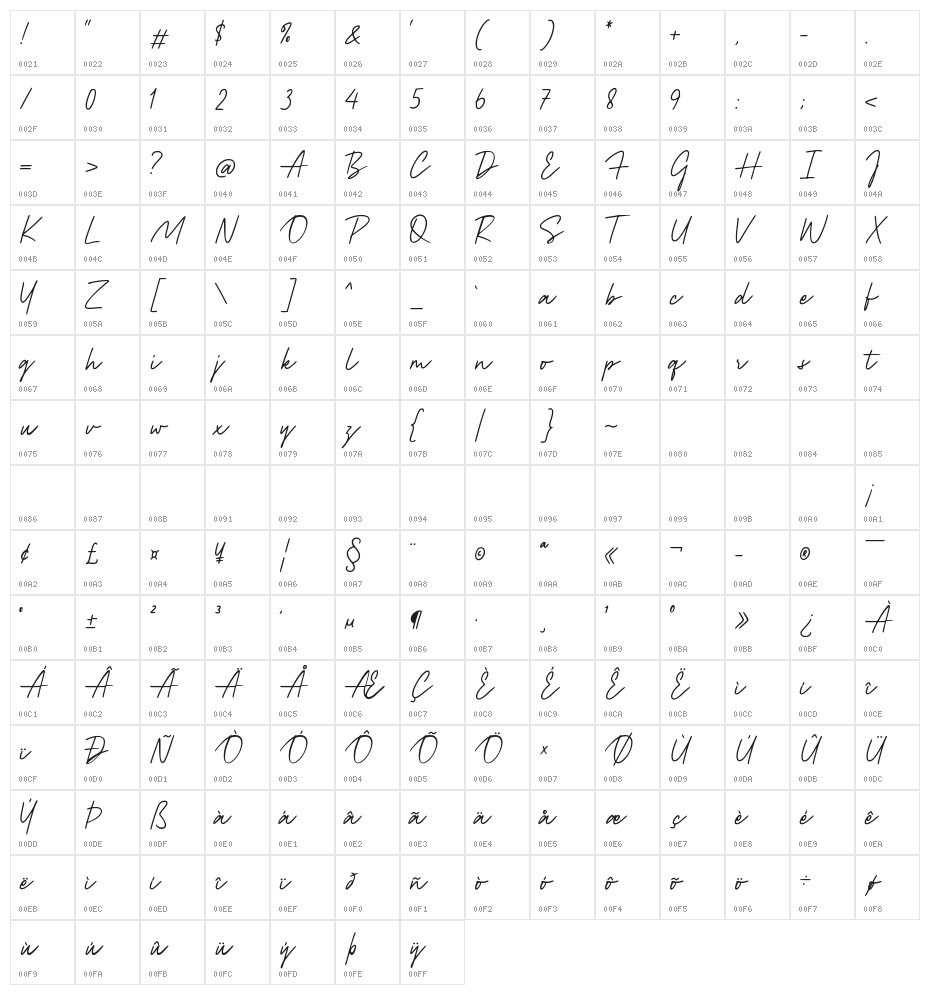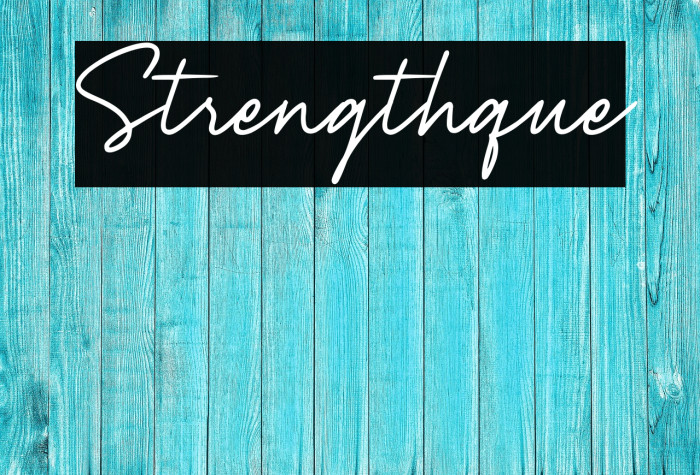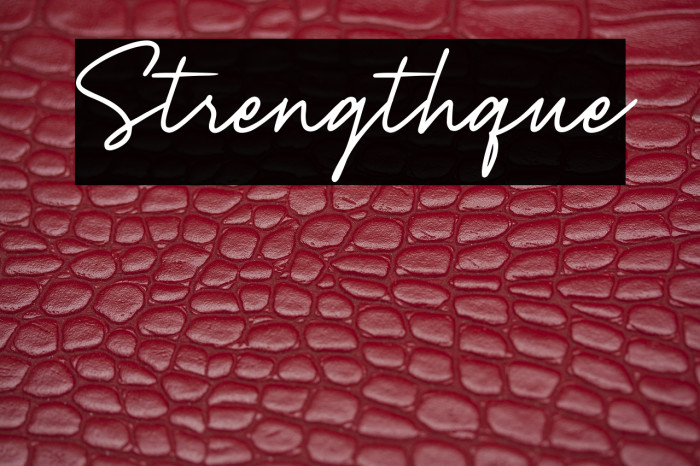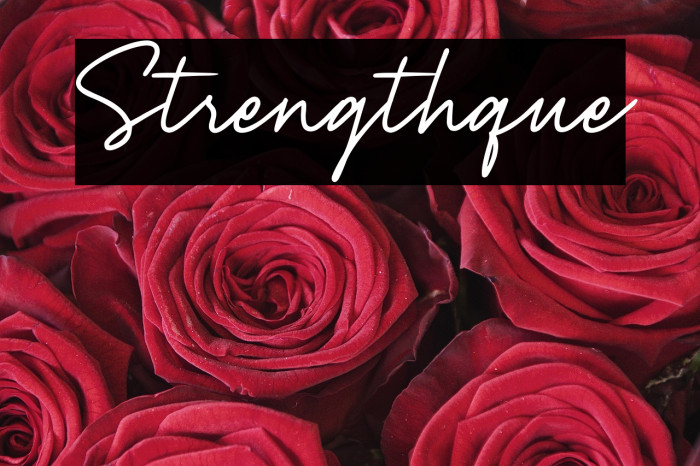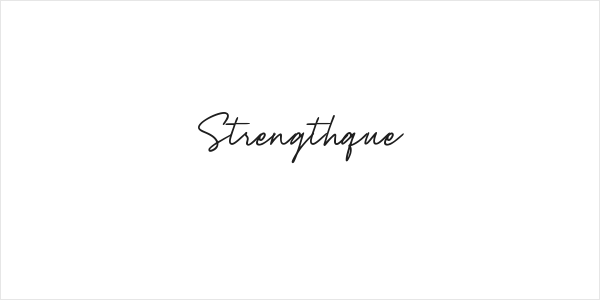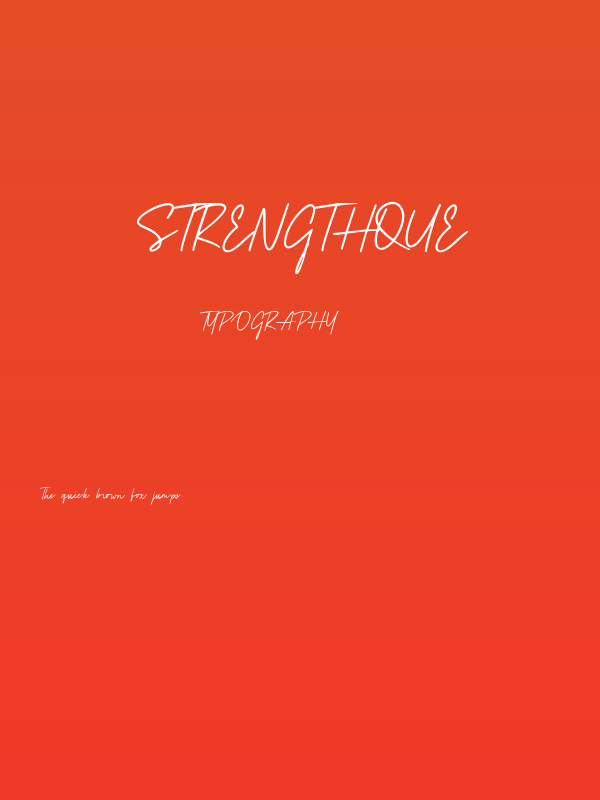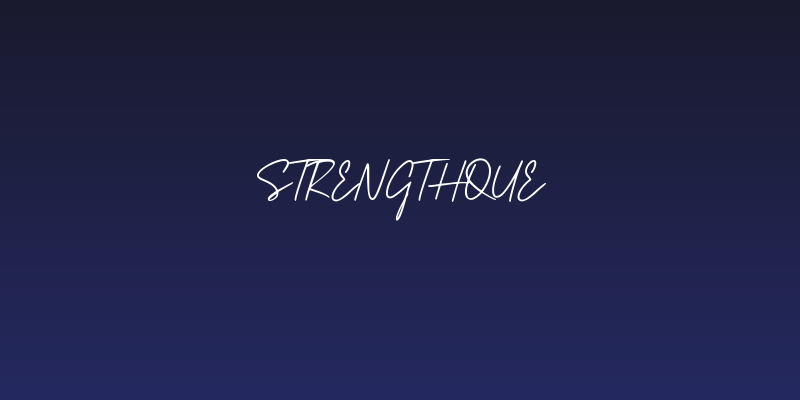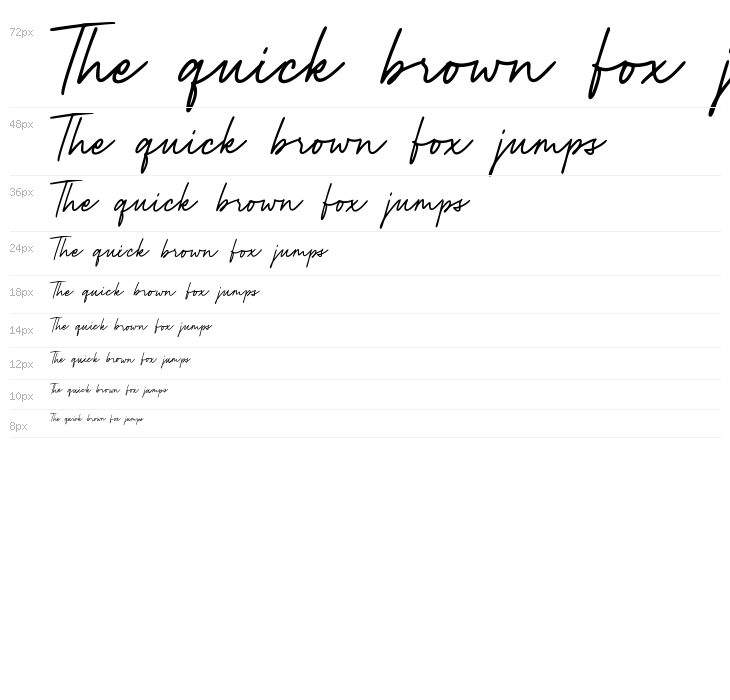
Strengthque Font
Strengthque Description
This font exudes a dynamic and fluid style, characterized by its cursive script that mimics natural handwriting. The letters are interconnected, creating a seamless flow that enhances readability while maintaining an artistic flair. The strokes are smooth and slightly varied in thickness, giving the font a lively and energetic appearance. The uppercase letters are bold and confident, while the lowercase letters maintain a consistent rhythm, adding to the overall elegance. The numerals and special characters are crafted with the same attention to detail, ensuring uniformity across all characters. This font is perfect for projects that require a personal touch, such as invitations, greeting cards, or branding materials.
| Use Case | Logos, Headlines, Artistic projects |
| Proposed Projects | Ideal for invitations, greeting cards, personal branding, and artistic projects that require a handwritten touch. |